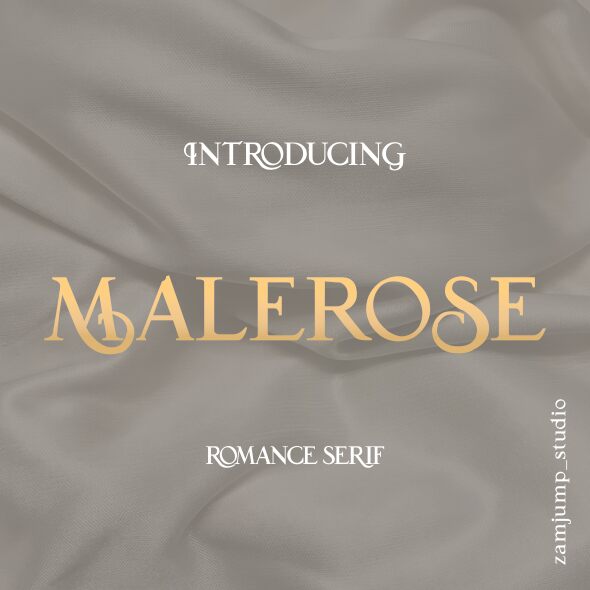
Malerose font, crafted by Zamjump, is a captivating serif font that marries traditional elegance with modern flair. Its striking contrast between thin and thick lines provides a dynamic visual appeal, perfect for adding sophistication to your designs. The graceful curves and sharp serifs make it stand out in any context, from branding to editorial layouts.
Ideal for headlines that demand attention, Malerose font excels in projects where a touch of class is essential. Its timeless style can enhance everything from wedding invitations to luxury brand materials. As a free font download option, Malerose offers designers the opportunity to elevate their work without breaking the bank. Explore its potential for creating visually stunning pieces that leave a lasting impression.